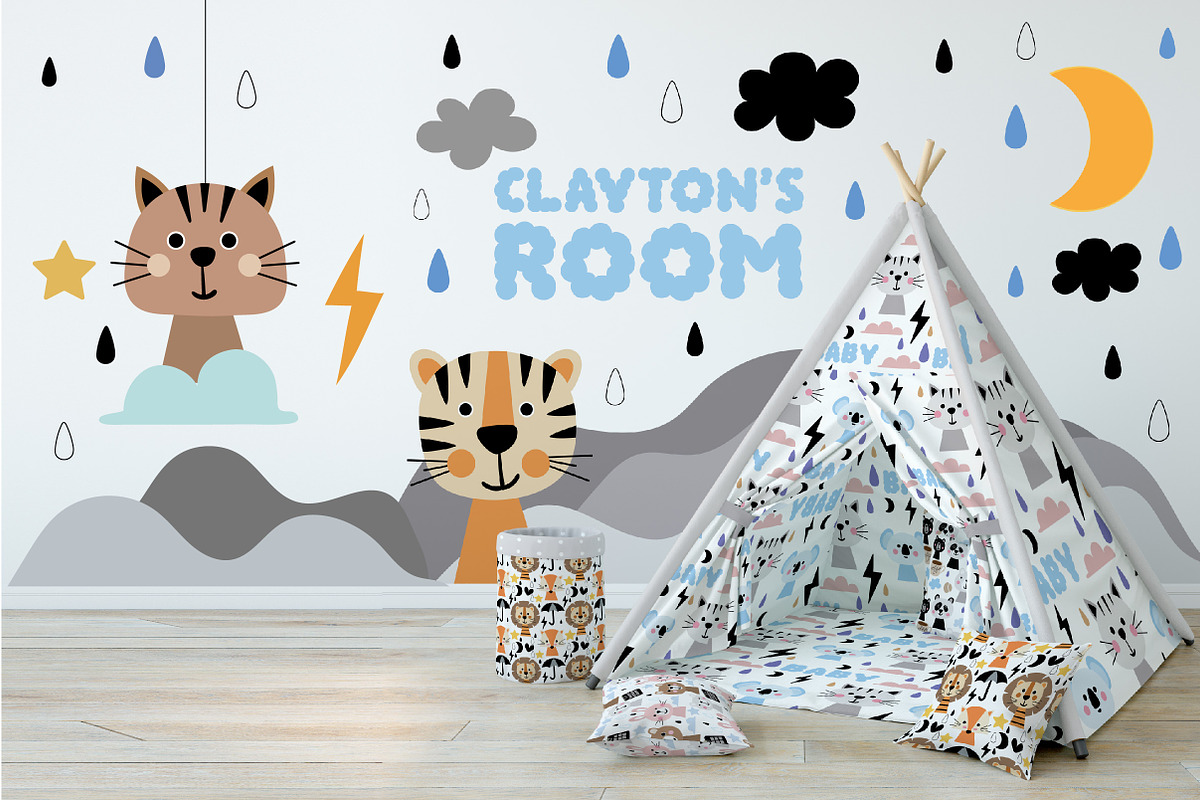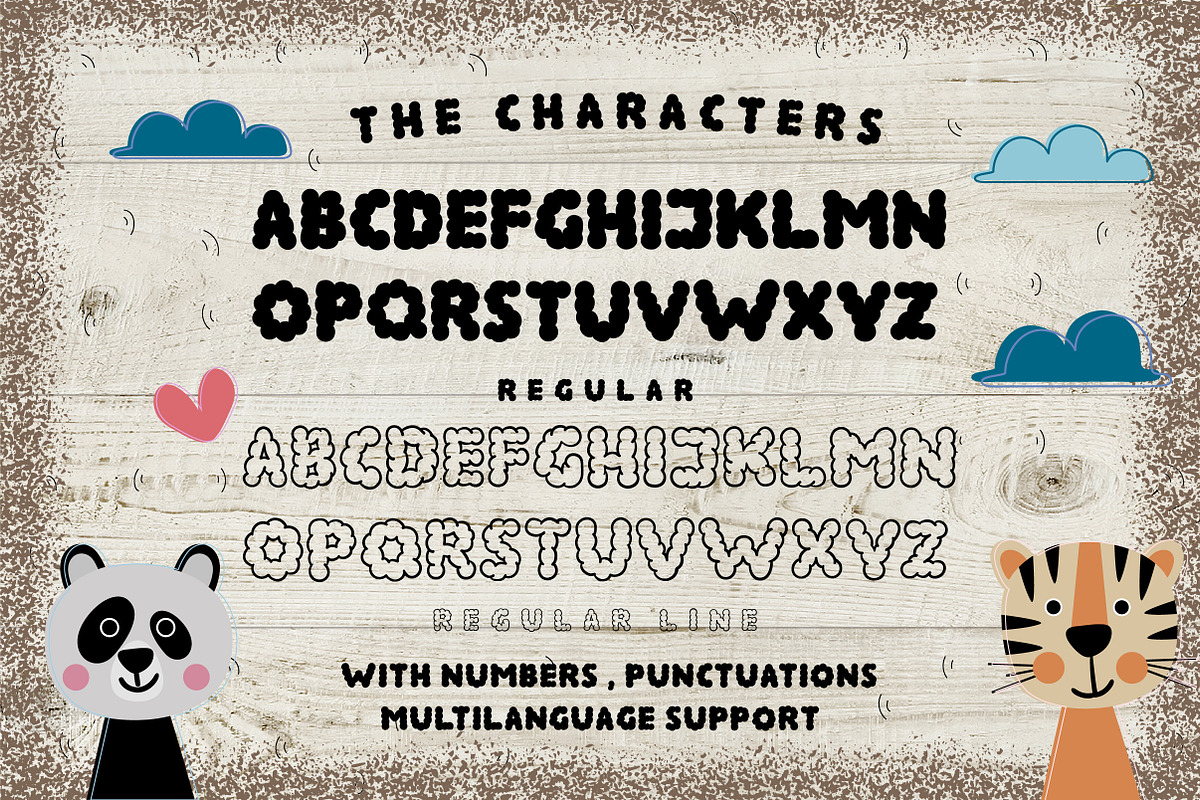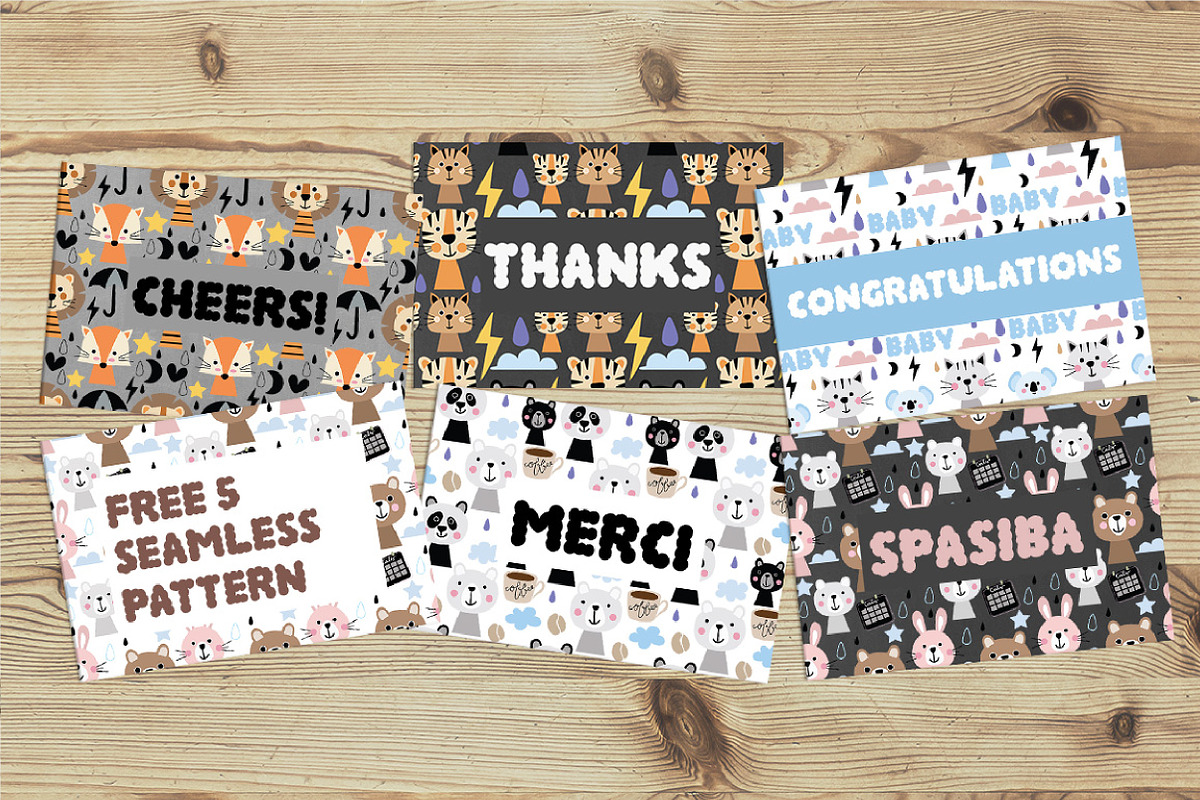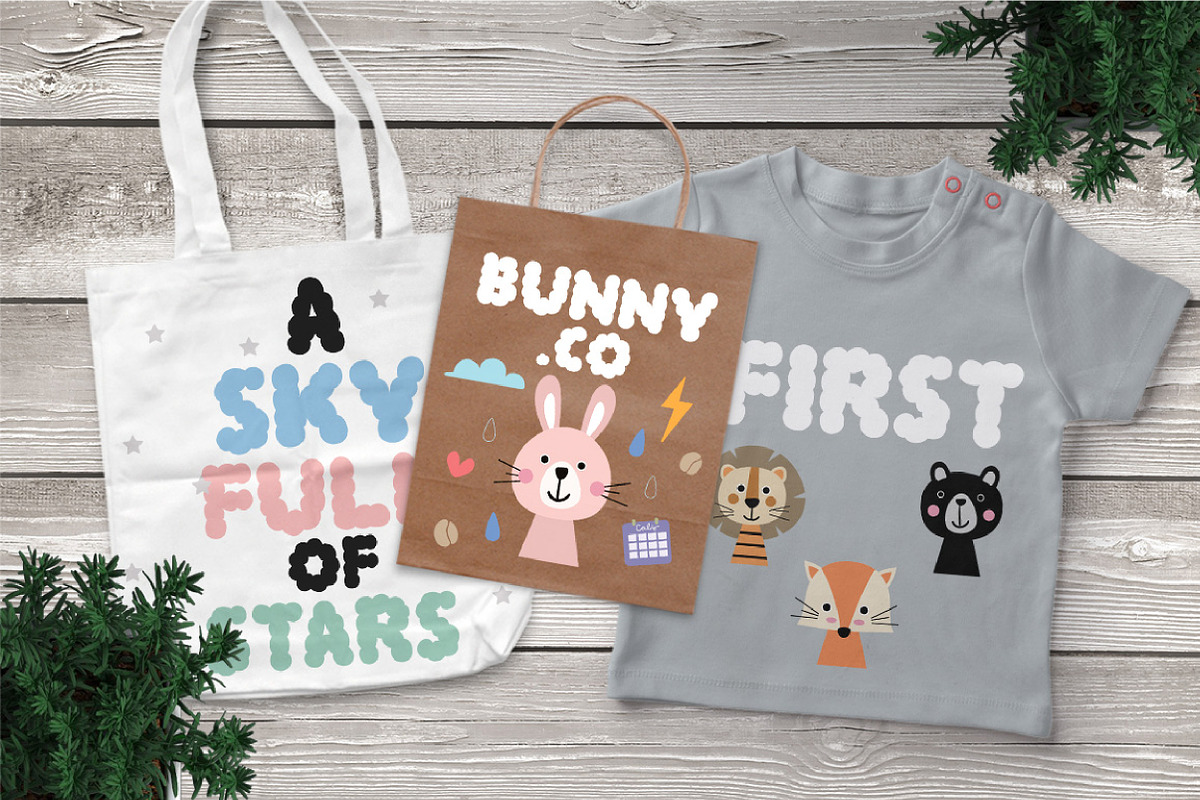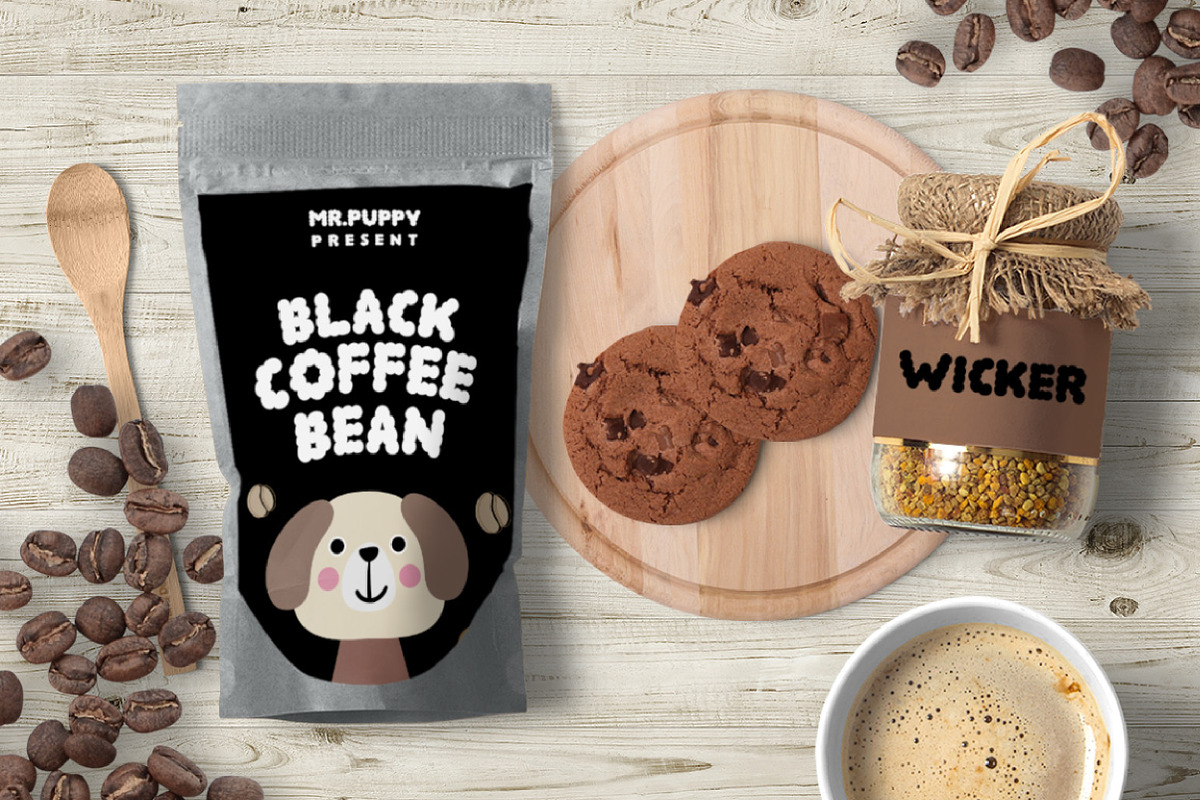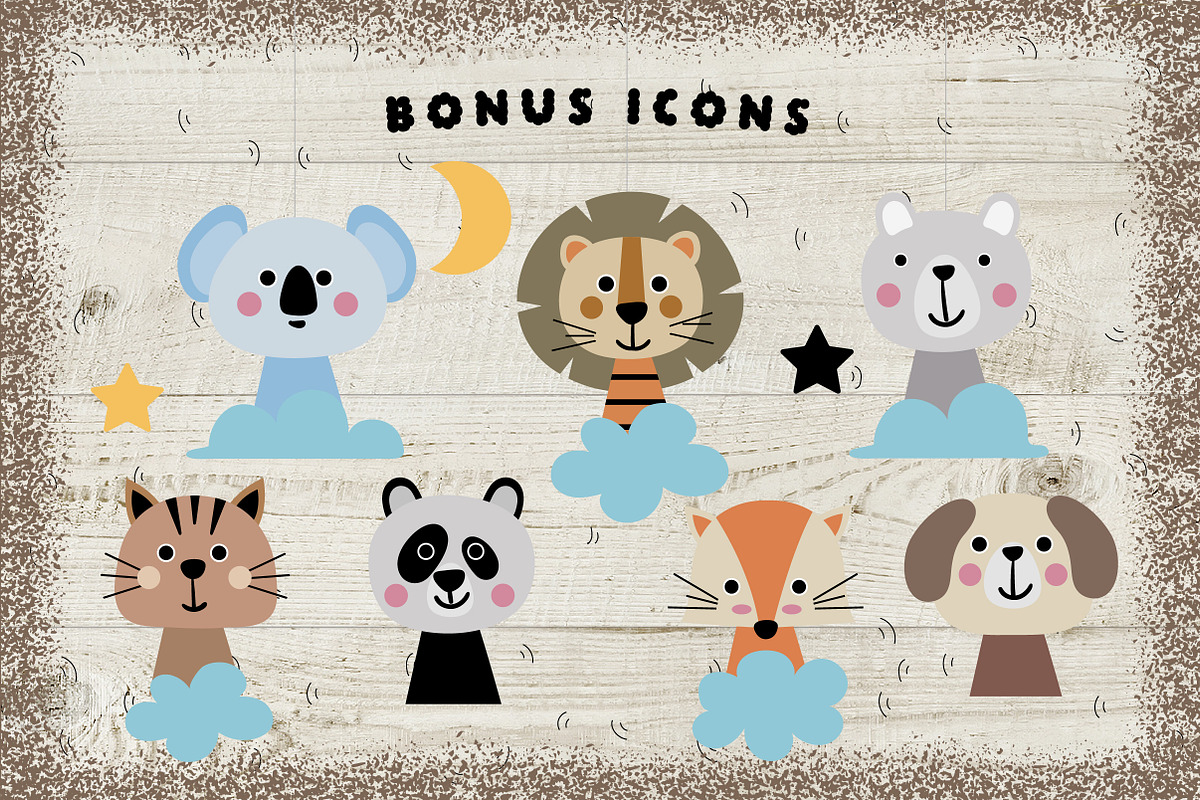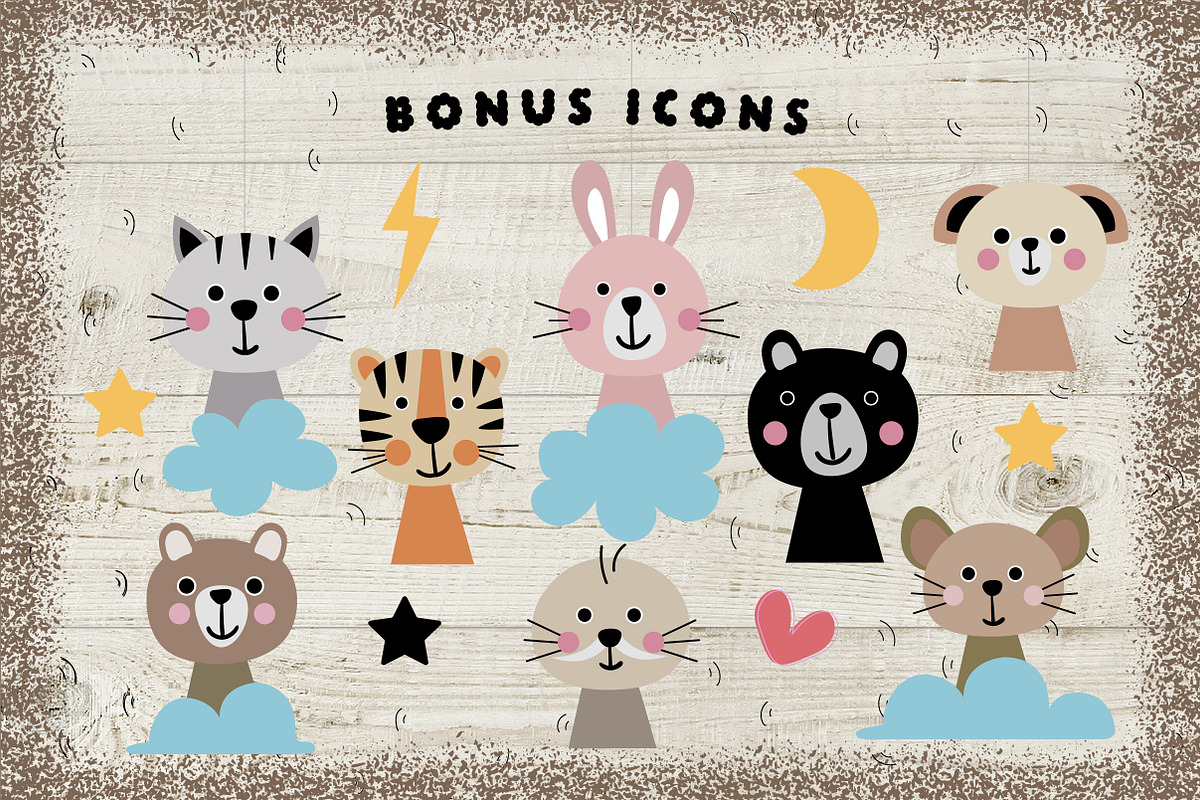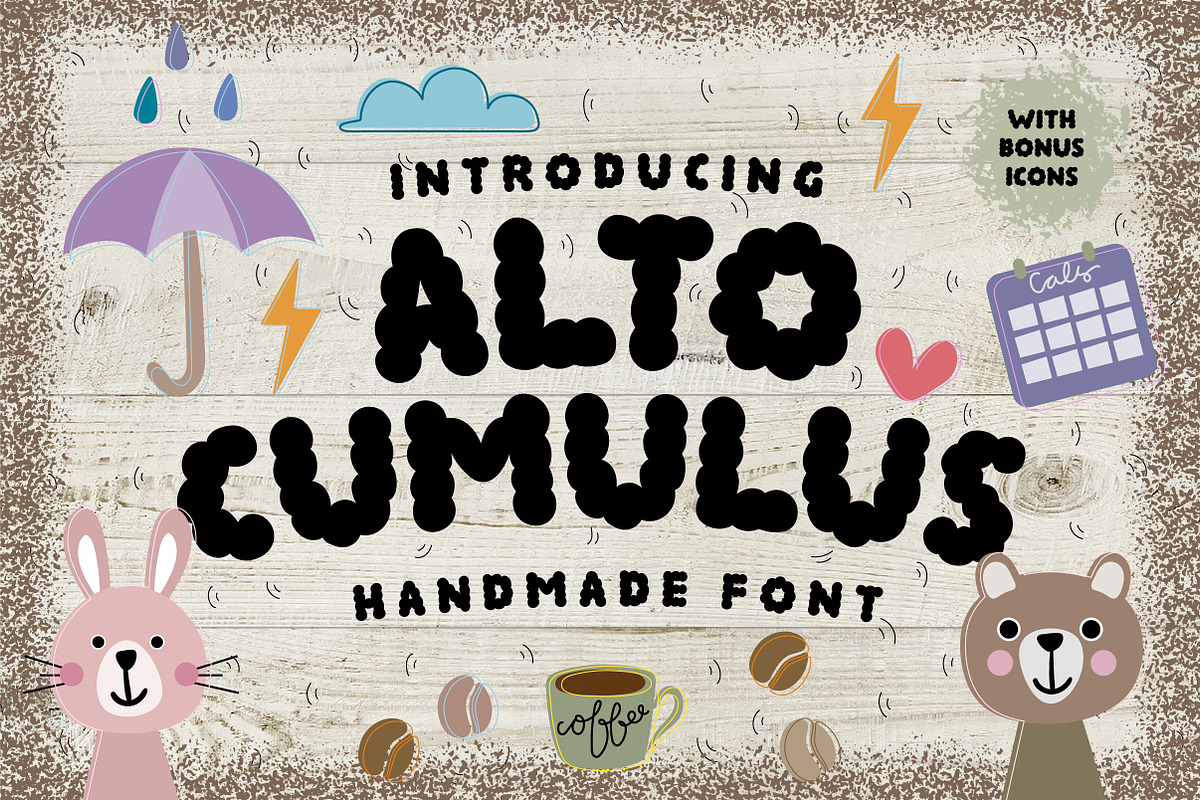
Altocumulus Font
Hi There! Altocumulus is a cloud inspired font suitable for your creative design. It is bold and has 2 different style, regular and line. You'll also get cute animals icons and 5 seamless pattern inside.